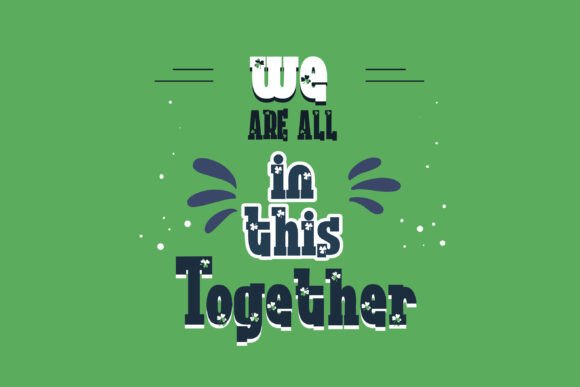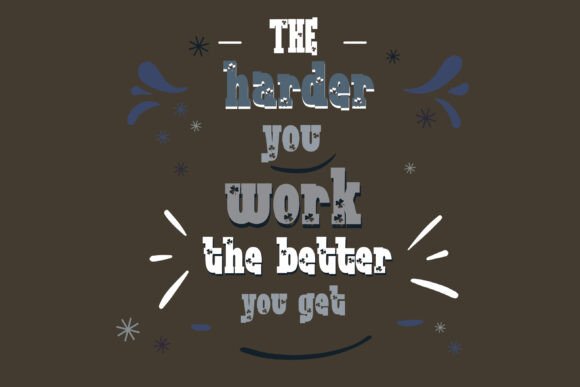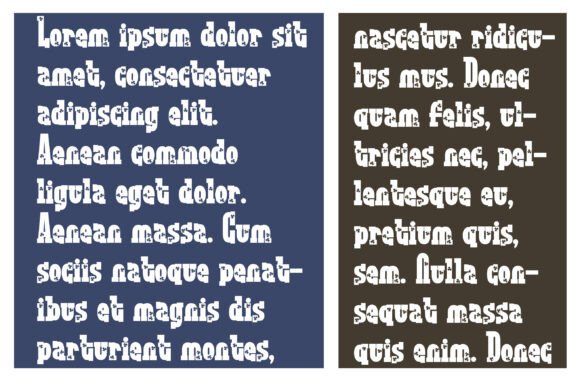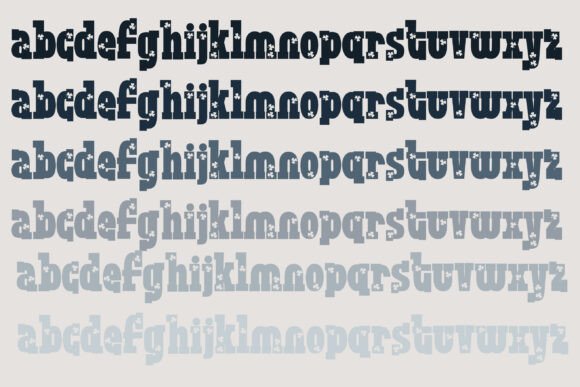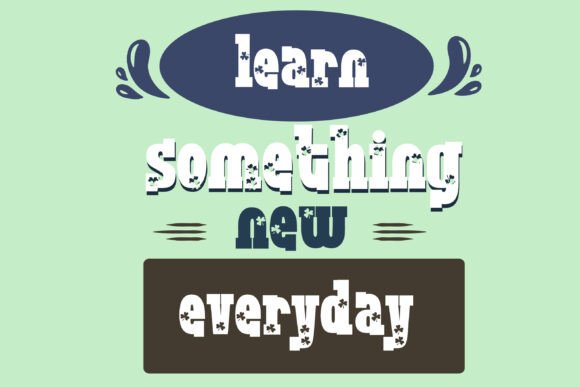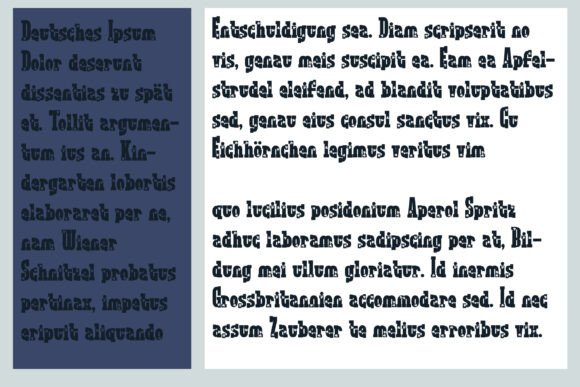
Introduction to Sim Patty Font Font
Fonts play a crucial role in design, and the Sim Patty Font font is a typeface that brings both character and versatility to any project. Whether you’re working on a branding project, a website, or a print design, the Sim Patty Font font offers a unique style that can elevate your work.
Sim Patty is a festive decorative font, that fits incredibly well to this time of the year.
No matter the topic, this font will be an incredible asset to your fontsβ library, as it has the potential to elevate any creation .
Key Features of Sim Patty Font Font
Why Choose Sim Patty Font Font?
The Sim Patty Font font is more than just a typeface β it’s a design tool that helps you communicate your message with style and clarity. Its unique character set and versatile design make it suitable for a wide range of applications, from elegant invitations to bold headlines.
With its carefully crafted letterforms and balanced proportions, the Sim Patty Font font ensures readability and visual appeal across all mediums.
What makes Sim Patty Font font special?
The Sim Patty Font font stands out with its unique design, exceptional readability, and versatility across various design applications.